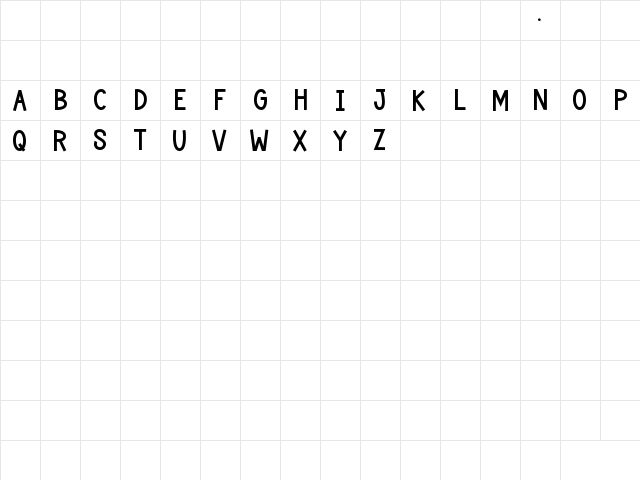
Bla Regular
Design Context for Bla Typeface
Bla is a composed and adaptable typeface that performs quietly and consistently across a wide range of design contexts.